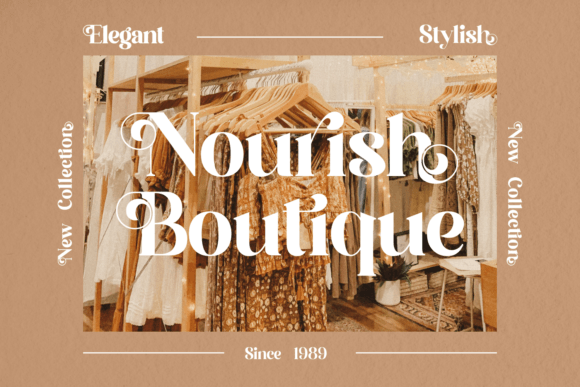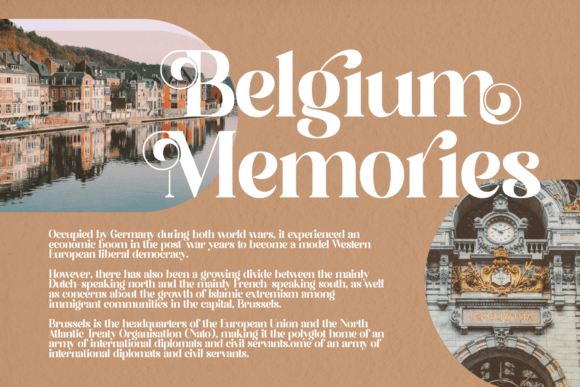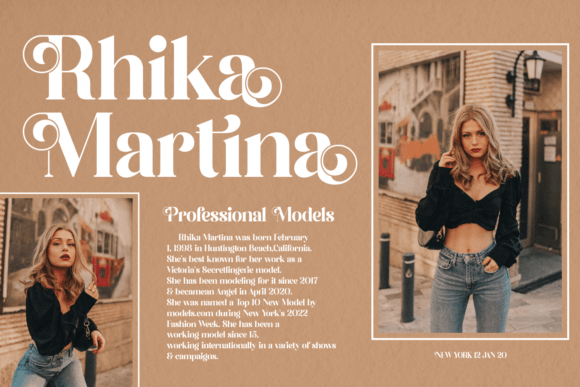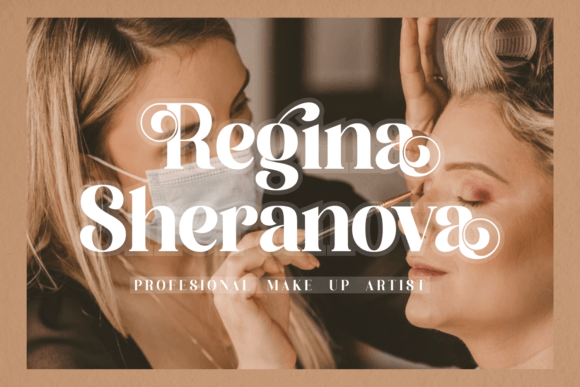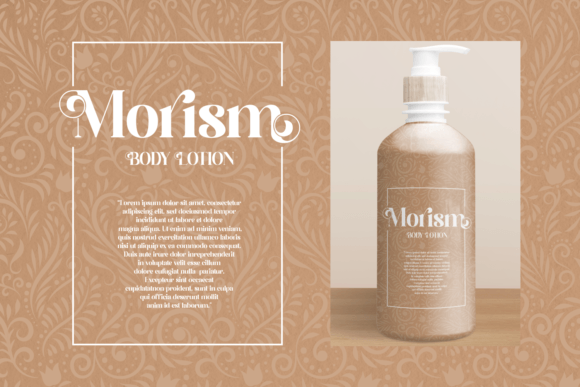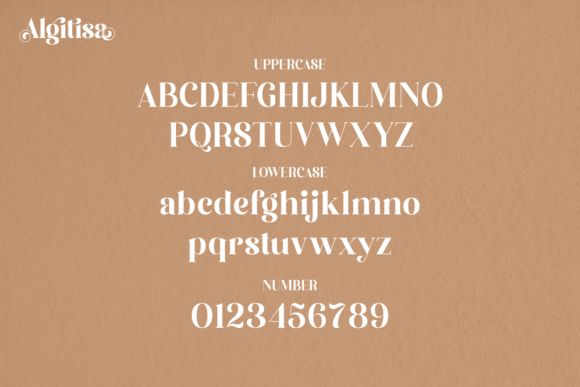
Introducing Algitisa Font: Elevate Your Designs with Luxury and Elegance
In the world of typography, a font can make or break a design. For designers and crafters seeking to add a touch of sophistication and luxury to their work, the Algitisa font is an exquisite choice. This deluxe serif font is crafted to embody the essence of elegance and refinement, making it perfect for upscale branding, high-end packaging, and elegant printed materials.
The Characteristics of Algitisa Font
Algitisa boasts refined curves and classical details that instantly elevate any design. Its serif structure exudes a sense of tradition and reliability, while its elegant curves add a modern touch. This combination makes Algitisa a versatile font suitable for a wide range of applications, from luxury brand logos to high-end product packaging and editorial designs.
Why Choose Algitisa Font?
- Luxury and Elegance: Algitisa is designed to bring a sense of luxury and elegance to your designs. Its sophisticated appearance makes it ideal for projects where you want to convey a high-end feel.
- Versatility: Whether you’re working on branding, packaging, or printed materials, Algitisa adapts seamlessly to various design needs. Its classic yet modern appeal ensures it fits well with both traditional and contemporary aesthetics.
- PUA Encoding: The Algitisa font is PUA (Private Use Area) encoded, which means you can easily access all the glyphs and swashes. This feature allows for greater flexibility and creativity in your designs, enabling you to experiment with different stylistic elements.
Applications of Algitisa Font
The versatility of Algitisa makes it suitable for a variety of design projects. Here are some of the ideal applications:
- Upscale Branding: Create memorable and elegant logos for luxury brands. Algitisa’s sophisticated look helps in establishing a premium brand image.
- High-End Packaging: Elevate product packaging with a touch of elegance. Algitisa ensures that your product stands out on the shelves with its refined and luxurious appeal.
- Elegant Printed Materials: From wedding invitations to corporate brochures, Algitisa adds a level of sophistication that is sure to impress. Its classic design works well for any printed material that requires an elegant touch.
Tips for Using Algitisa Font Effectively
To maximize the potential of Algitisa, consider the following tips:
- Pair with Complementary Fonts: While Algitisa is elegant on its own, pairing it with a sans-serif font can create a striking contrast. Experiment with different combinations to find the perfect balance.
- Utilize Swashes and Glyphs: Take full advantage of the PUA encoding by incorporating swashes and additional glyphs into your design. These elements can add a unique touch and make your design stand out.
- Adjust Kerning and Spacing: Fine-tune the kerning and spacing to ensure that your text is easy to read and visually appealing. This attention to detail can significantly enhance the overall look of your design.
| Font Name | Algitisa Font |
| Author | Rydmaker (7NTypes) |
The Algitisa font is a powerful tool for designers and crafters looking to infuse their projects with luxury and elegance. Its refined curves, classical details, and PUA encoding make it a versatile and valuable addition to any design toolkit. Whether you’re working on upscale branding, high-end packaging, or elegant printed materials, Algitisa is sure to elevate your designs to new heights of sophistication. Incorporate Algitisa into your projects today and experience the transformative power of exquisite typography.